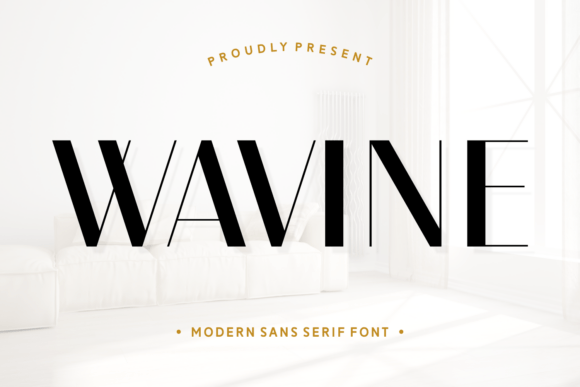
Wavine Font: A Modern Sans-Serif Typeface for Elegant Designs
In the world of typography, fonts play a crucial role in conveying the tone and personality of a brand, product, or service. With the rise of digital media, the demand for modern and versatile fonts has increased, and Wavine font has emerged as a popular choice among designers and marketers. In this article, we will explore the features, benefits, and uses of Wavine font, a modern sans-serif typeface that embodies elegance, simplicity, and versatility.
What is Wavine Font?
Wavine font is a contemporary sans-serif typeface designed to provide a clean and sophisticated look to various design projects. Its smooth curves and fluid lines create a sense of elegance and simplicity, making it an ideal choice for branding, logos, editorial content, and digital media. The font’s design is characterized by its geometric shapes, balanced proportions, and subtle rounded edges, which give it a friendly and approachable feel.
Key Features of Wavine Font
- Modern sans-serif design: Wavine font boasts a modern sans-serif design that is both clean and sophisticated.
- Smooth curves and fluid lines: The font’s smooth curves and fluid lines create a sense of elegance and simplicity.
- Versatile and adaptable: Wavine font is designed to be versatile and adaptable, making it suitable for various design projects, from branding and logos to editorial content and digital media.
- Excellent readability: The font’s clear and balanced design ensures excellent readability, even at small font sizes.
- Timeless appeal: Wavine font’s design combines contemporary style with timeless appeal, making it a great choice for designers who want to create designs that stand the test of time.
Benefits of Using Wavine Font
Wavine font offers several benefits to designers and marketers, including:
- Elegant and sophisticated look: Wavine font provides an elegant and sophisticated look to designs, making it ideal for luxury brands, high-end products, and premium services.
- Improved readability: The font’s clear and balanced design ensures excellent readability, even at small font sizes, making it suitable for body text and editorial content.
- Versatility: Wavine font is versatile and adaptable, making it suitable for various design projects, from branding and logos to editorial content and digital media.
- Timeless appeal: The font’s design combines contemporary style with timeless appeal, making it a great choice for designers who want to create designs that stand the test of time.
Uses of Wavine Font
Wavine font is a versatile typeface that can be used in various design projects, including:
- Branding and logos: Wavine font is an excellent choice for branding and logos, providing an elegant and sophisticated look to brands and products.
- Editorial content: The font’s clear and balanced design makes it suitable for editorial content, such as articles, blog posts, and books.
- Digital media: Wavine font is optimized for digital media, making it suitable for websites, mobile apps, and social media platforms.
- Advertising and marketing materials: The font’s elegant and sophisticated look makes it suitable for advertising and marketing materials, such as brochures, flyers, and posters.
How to Use Wavine Font Effectively
To use Wavine font effectively, designers and marketers should consider the following tips:
- Choose the right font size: Wavine font is designed to be legible at various font sizes, but it’s essential to choose the right font size for the design project.
- Use font weights effectively: Wavine font comes in various font weights, which can be used to create visual hierarchy and emphasize important information.
- Pair with other fonts: Wavine font can be paired with other fonts to create a unique and visually appealing design.
- Consider the color scheme: The font’s color scheme should be considered when using Wavine font, as it can affect the overall look and feel of the design.
Wavine font is a modern sans-serif typeface that embodies elegance, simplicity, and versatility. Its clean design, smooth curves, and fluid lines make it an ideal choice for branding, logos, editorial content, and digital media. With its excellent readability, timeless appeal, and versatility, Wavine font is a great choice for designers and marketers who want to create designs that stand out from the crowd.
FAQs About Wavine Font
- What is Wavine font? Wavine font is a modern sans-serif typeface designed to provide a clean and sophisticated look to various design projects.
- What is the best use for Wavine font? Wavine font is suitable for various design projects, including branding, logos, editorial content, and digital media.